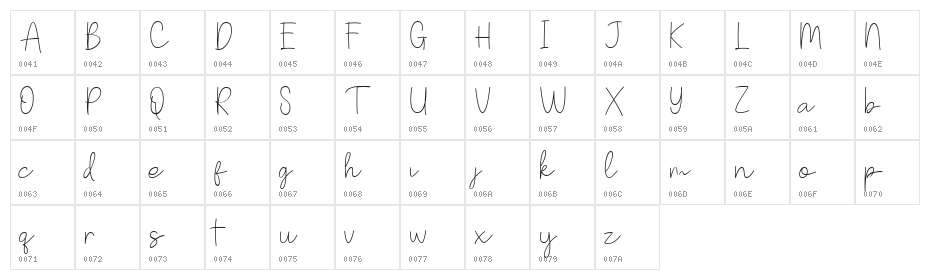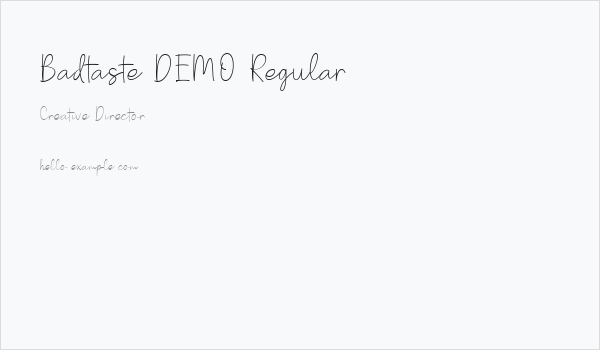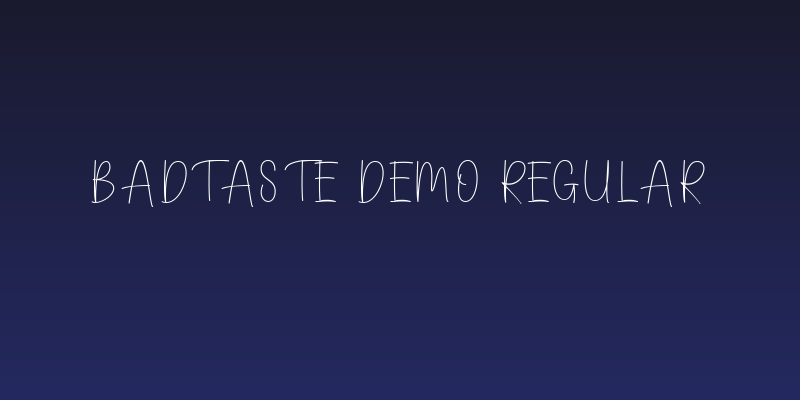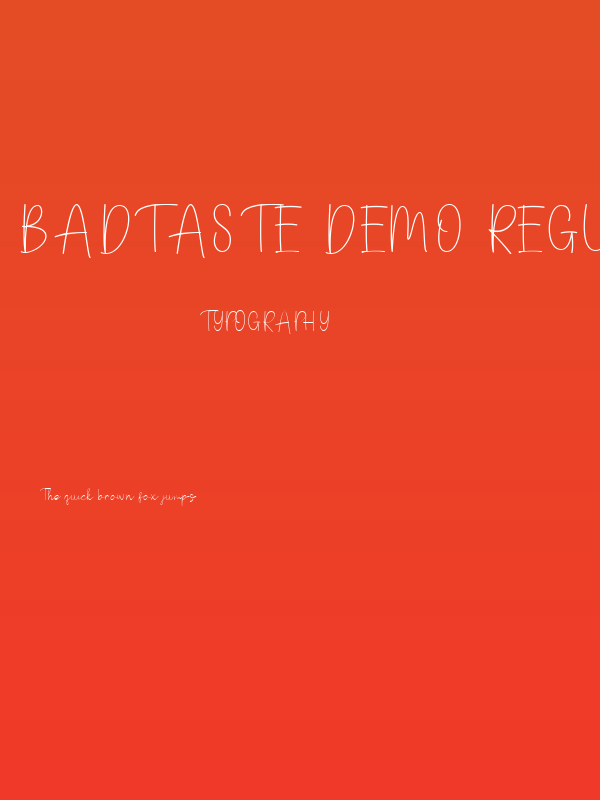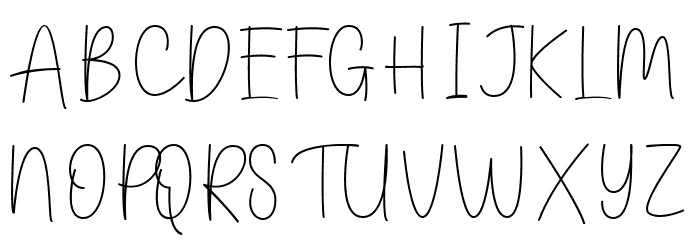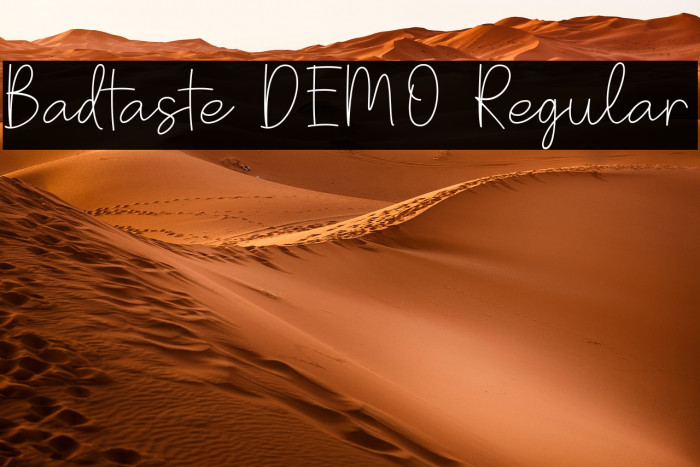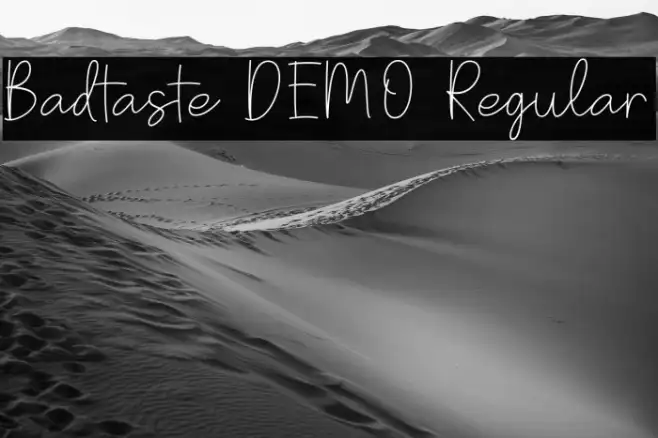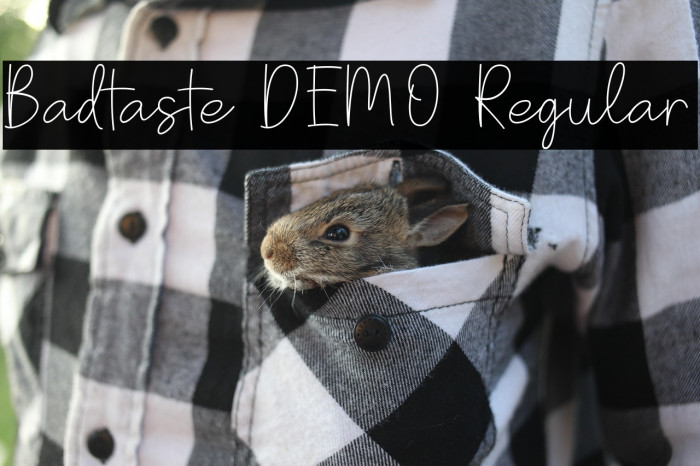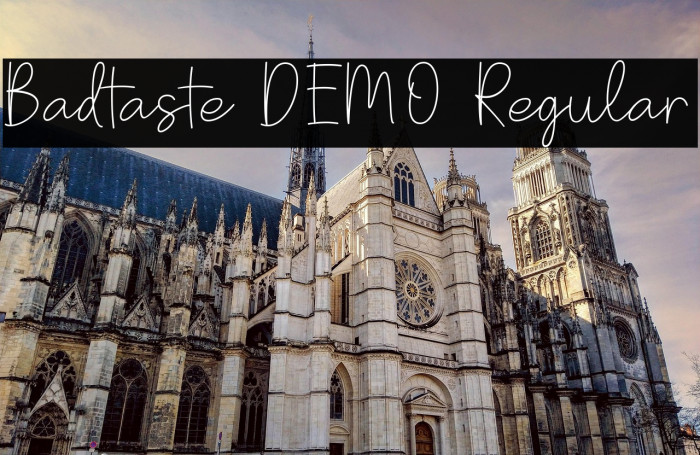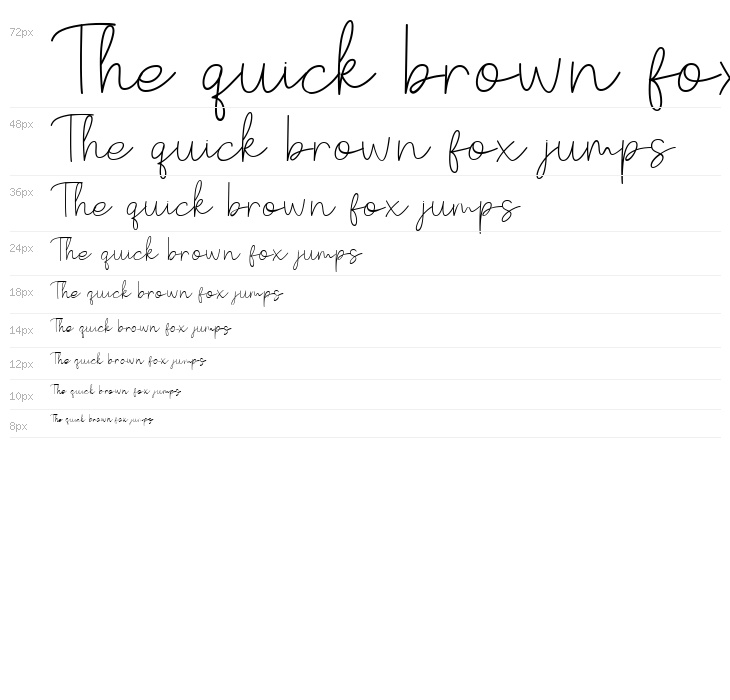
Badtaste DEMO Regular Font
Badtaste DEMO Regular Description
This font features a playful and whimsical handwritten style, characterized by its loose and flowing letterforms. The strokes are thin and consistent, giving it a light and airy feel. The uppercase and lowercase letters maintain a casual, informal appearance, with some letters exhibiting unique loops and curves that add to its charm. The font's overall design is approachable and friendly, making it suitable for creative and informal applications. Its simplicity and elegance make it versatile for various design projects.
| Overall Style | Casual and Whimsical |
| Use Case | Logos, Invitations, Creative projects |
| Proposed Projects | Ideal for greeting cards, invitations, personal branding, and creative projects that require a friendly and informal touch. |